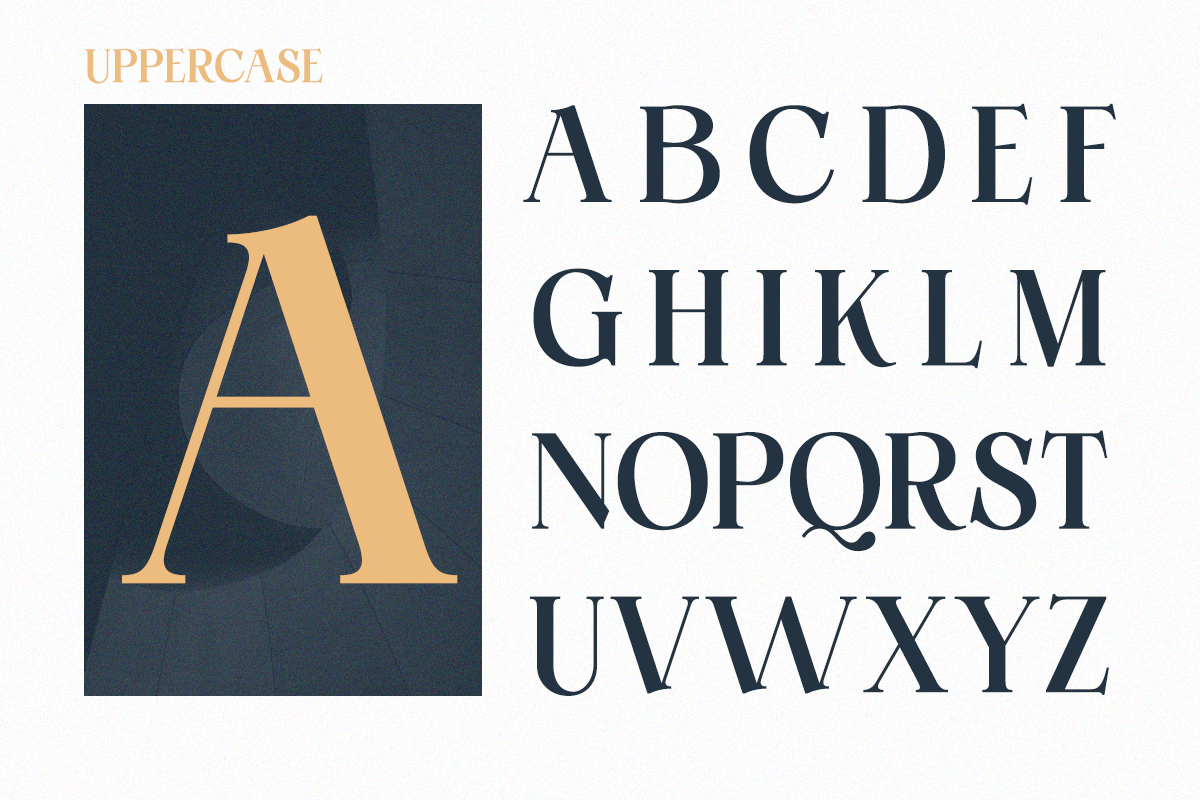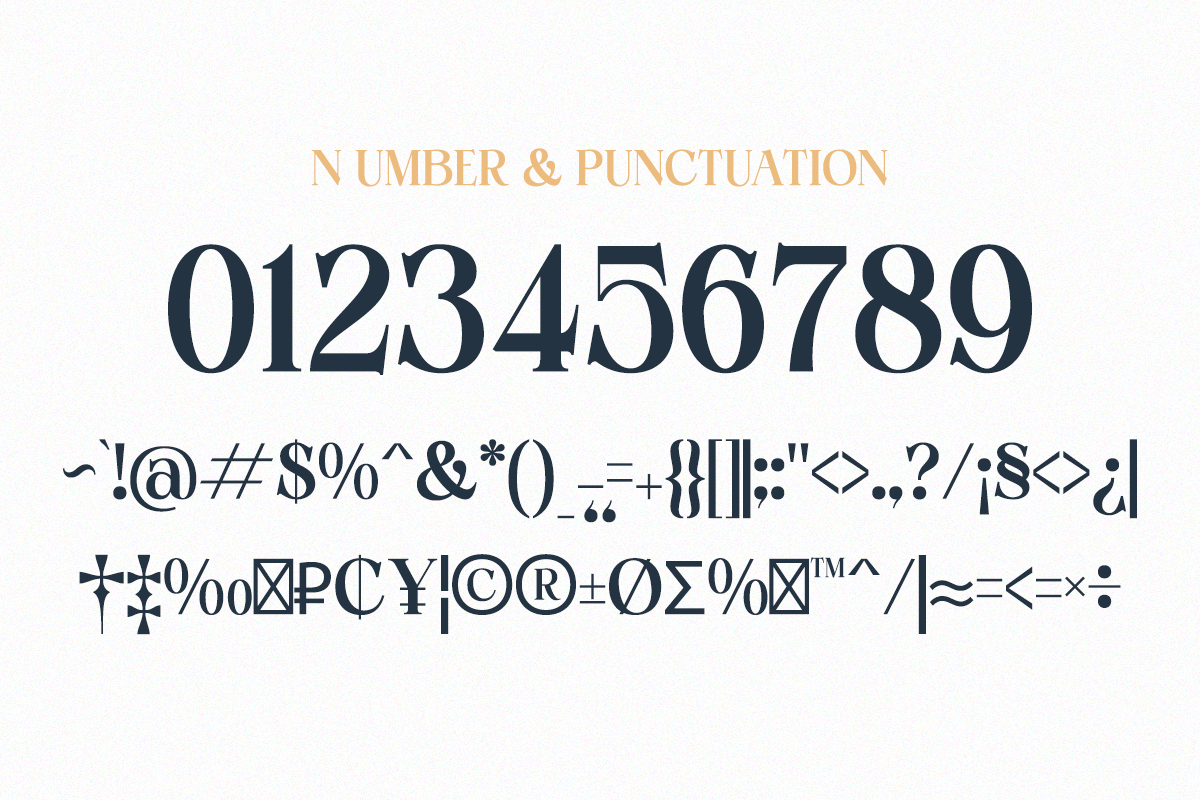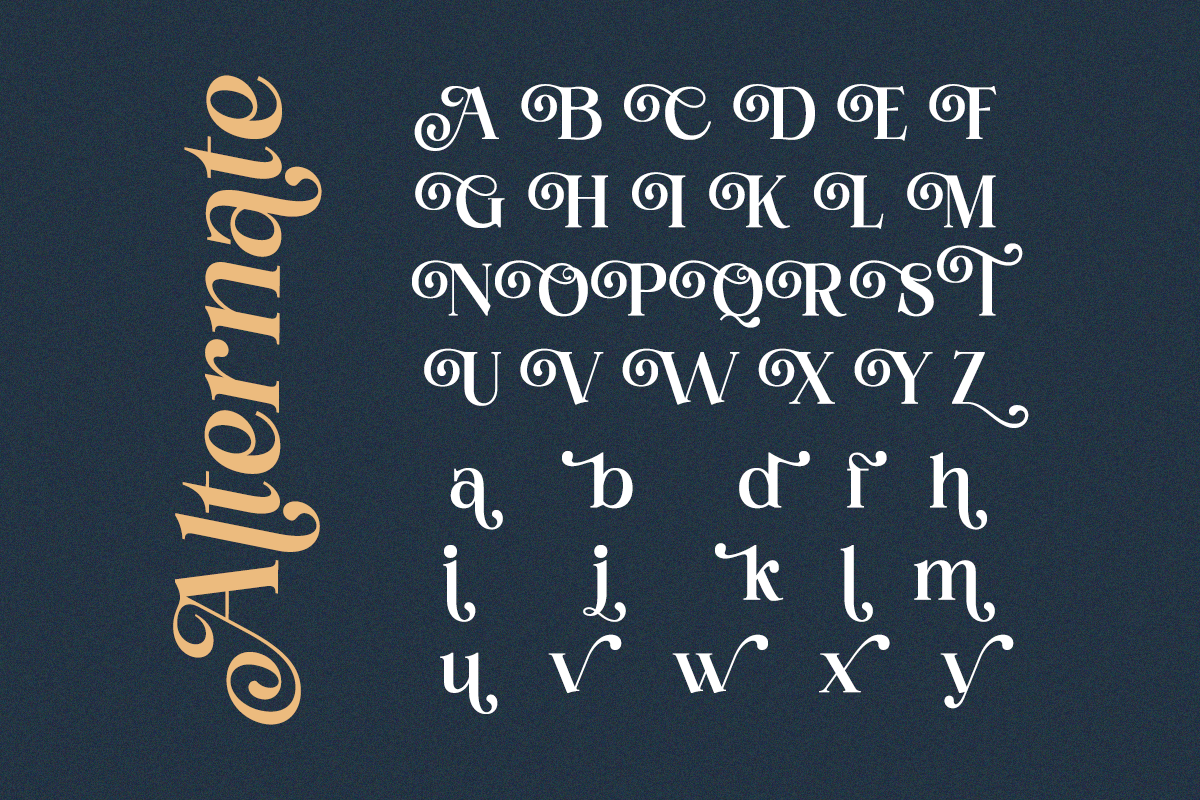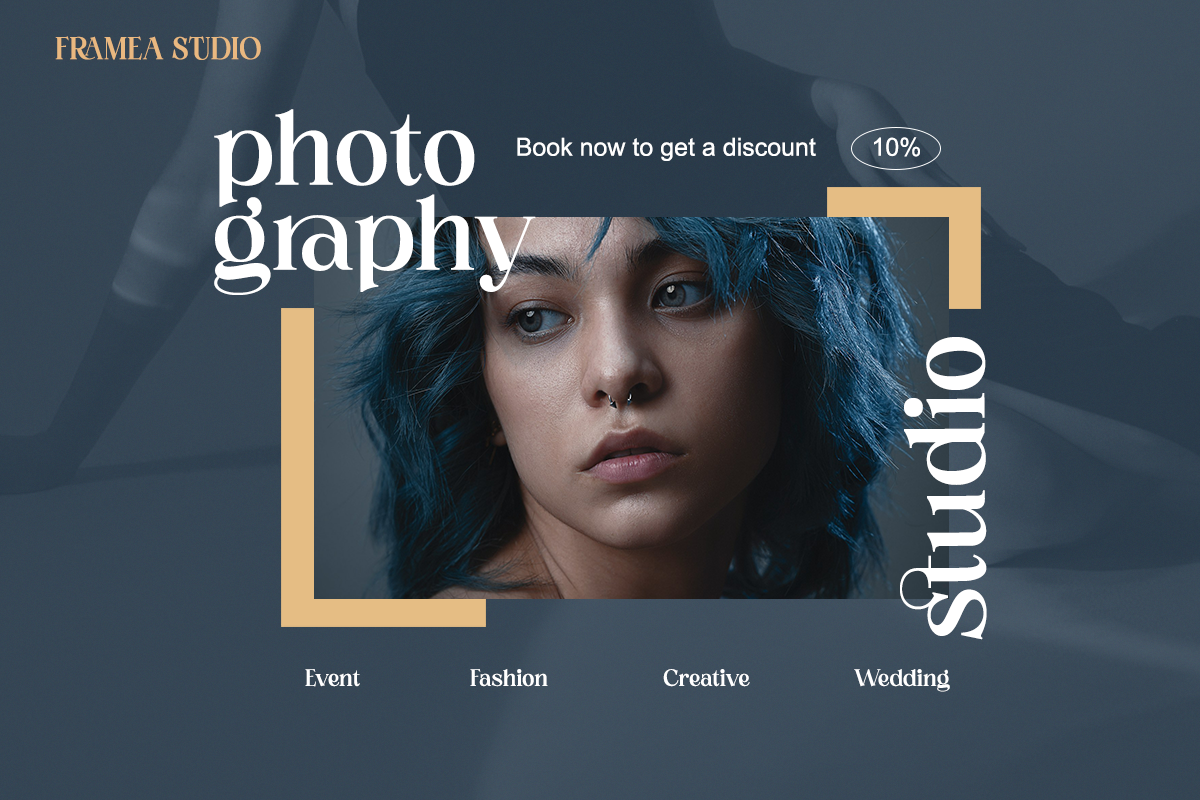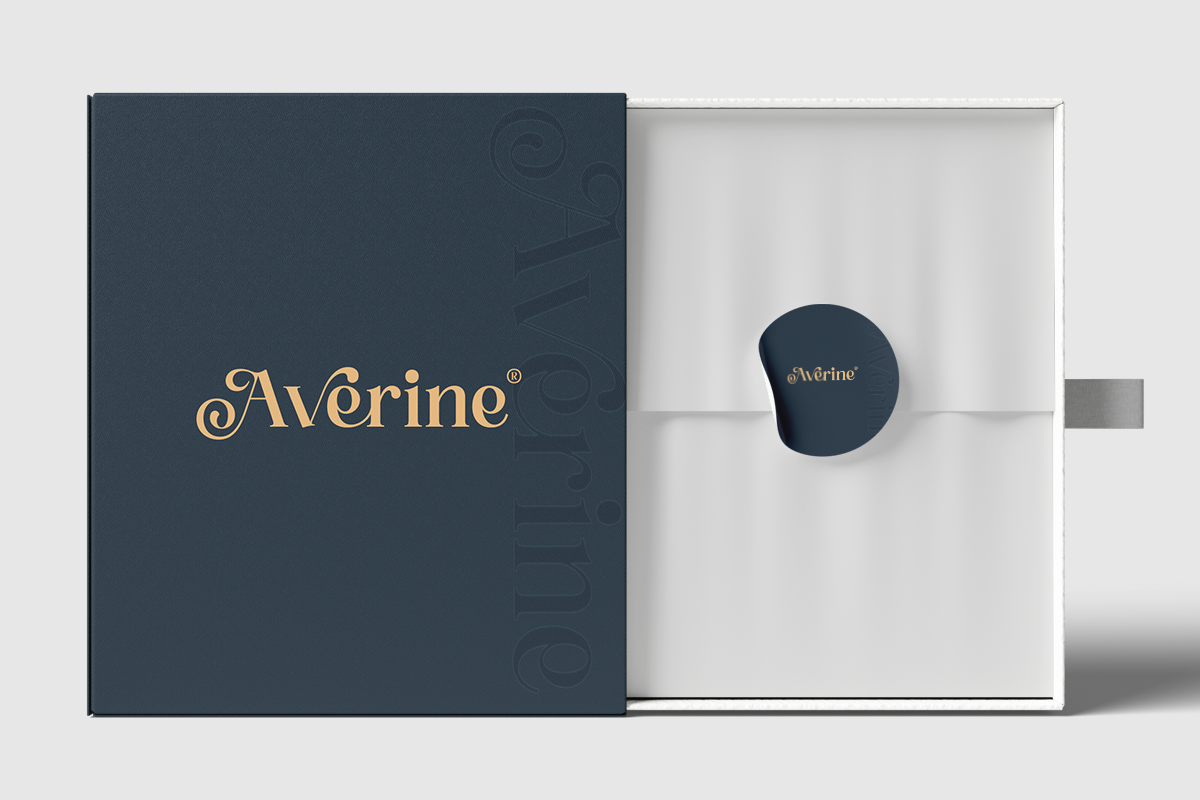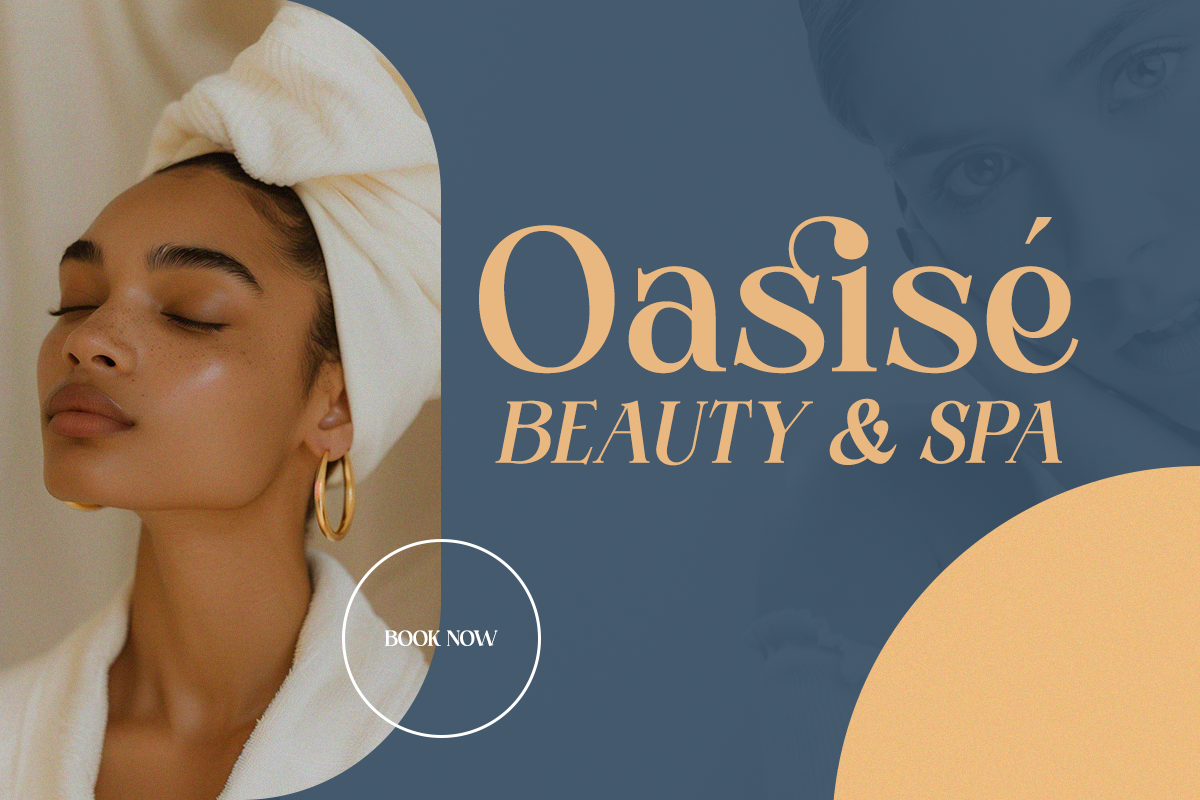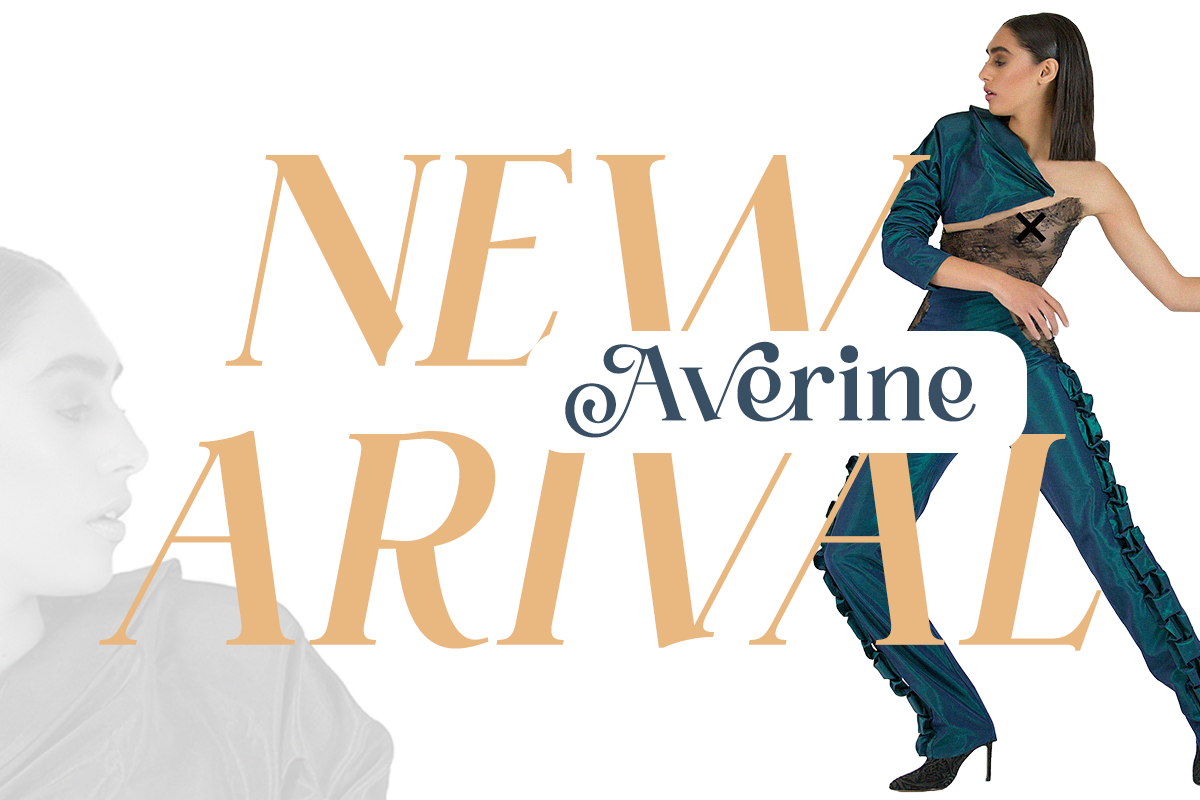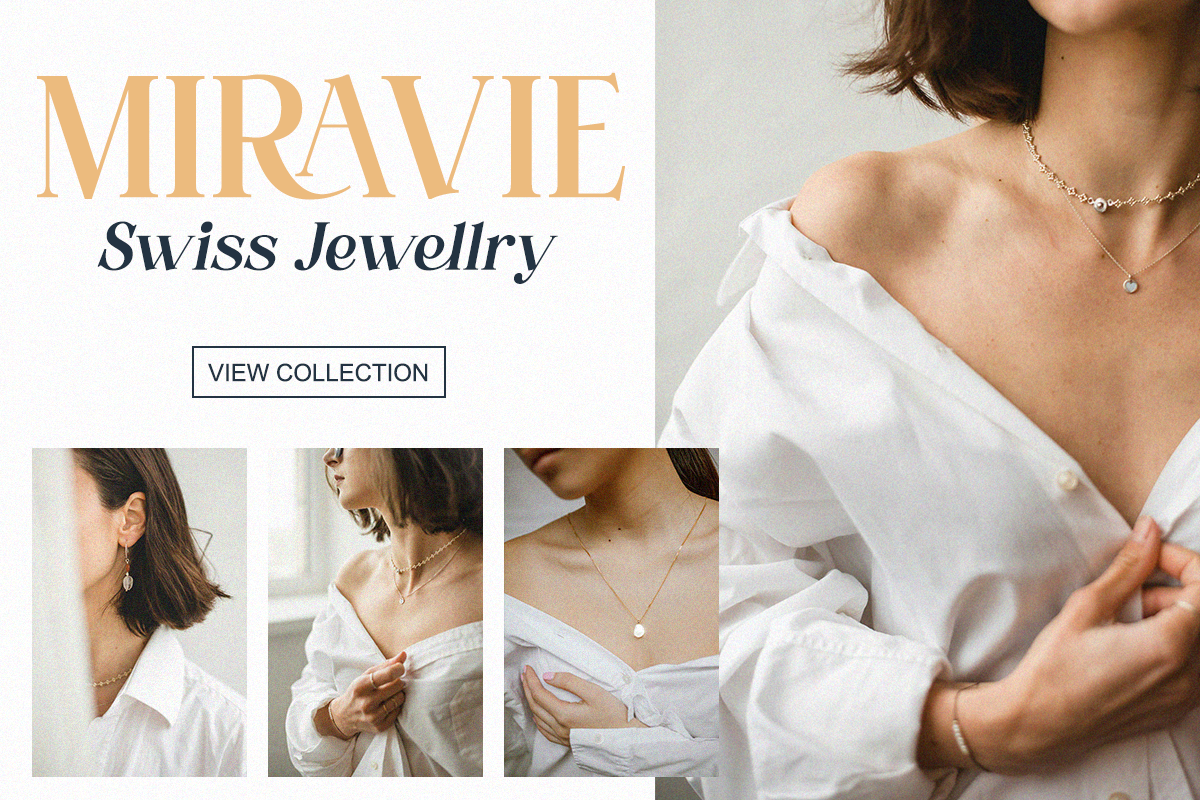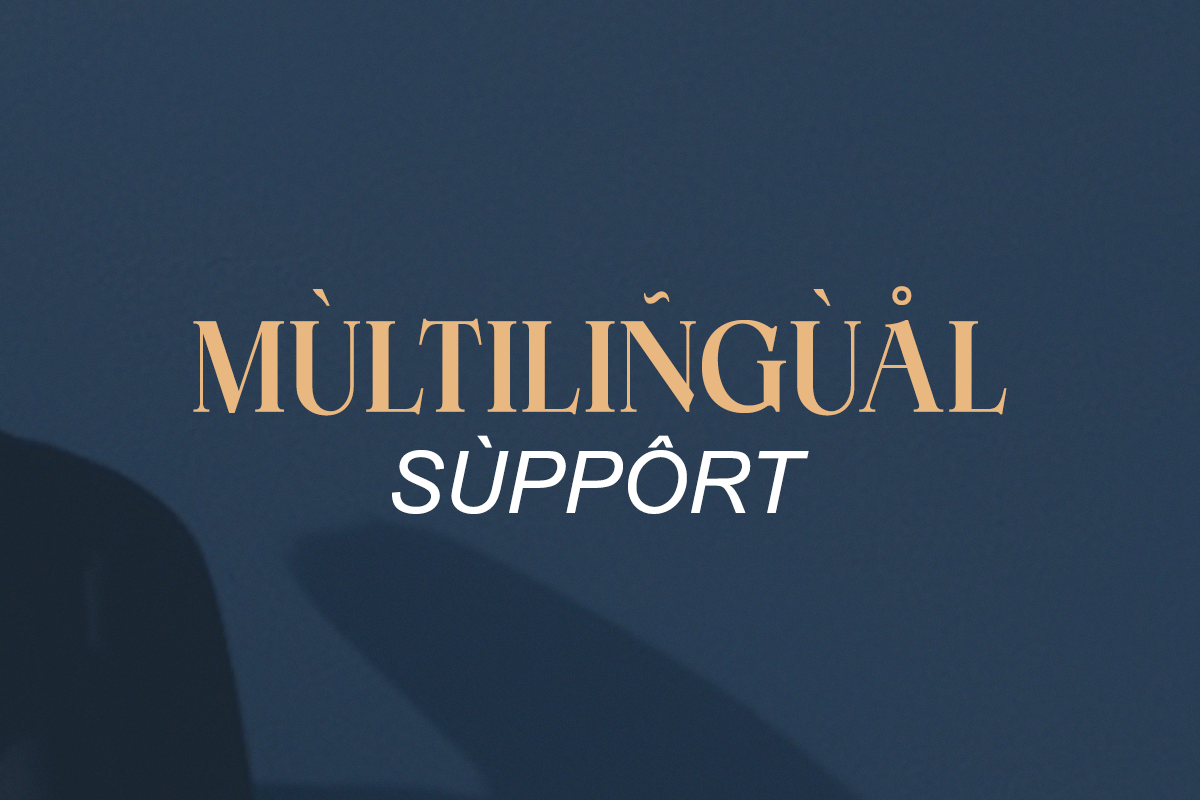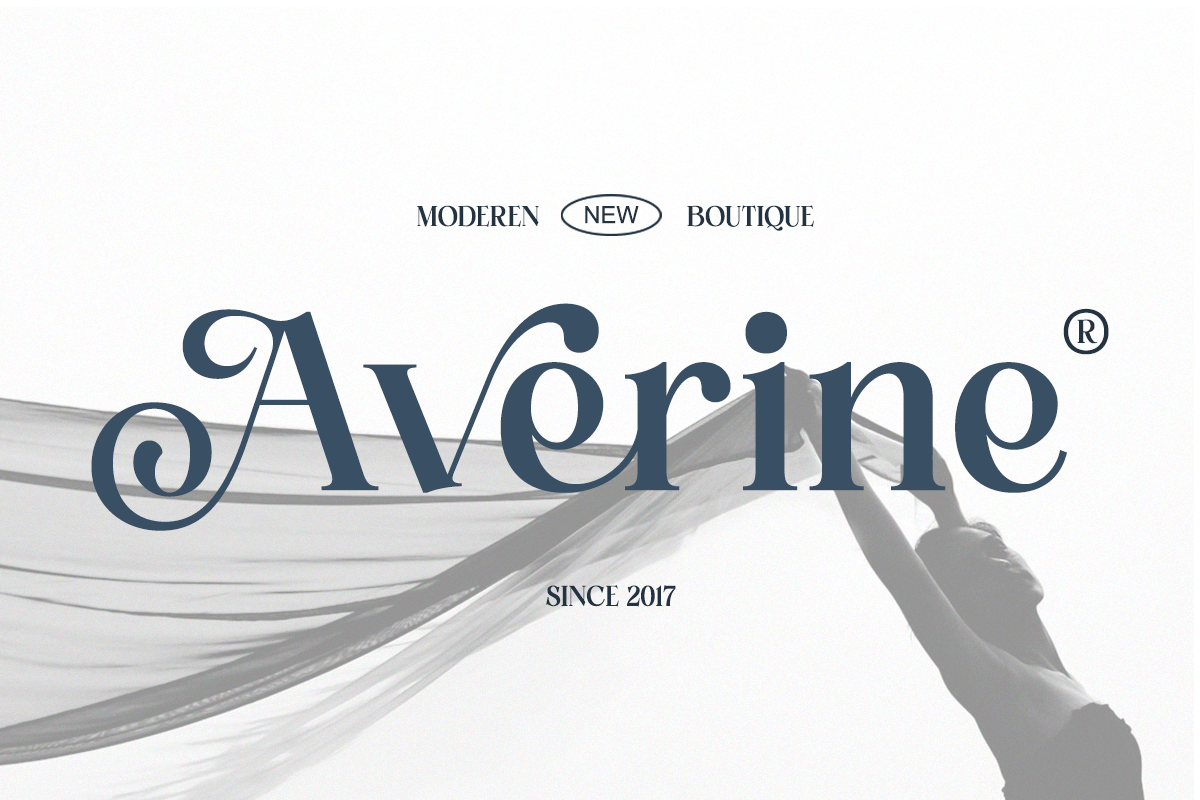
Gildora - Modern Elegant Stylish
Gildora is a modern serif typeface designed to express sophistication and visual harmony. Its clean curves, subtle contrast, and tasteful ligatures make it ideal for fashion branding, packaging, and editorial layouts. With Gildora, your designs feel luxurious, confident, and unforgettable.
- Regular & Italic
Perfect For: Luxury branding, editorial headlines, product packaging, and modern fashion identity.